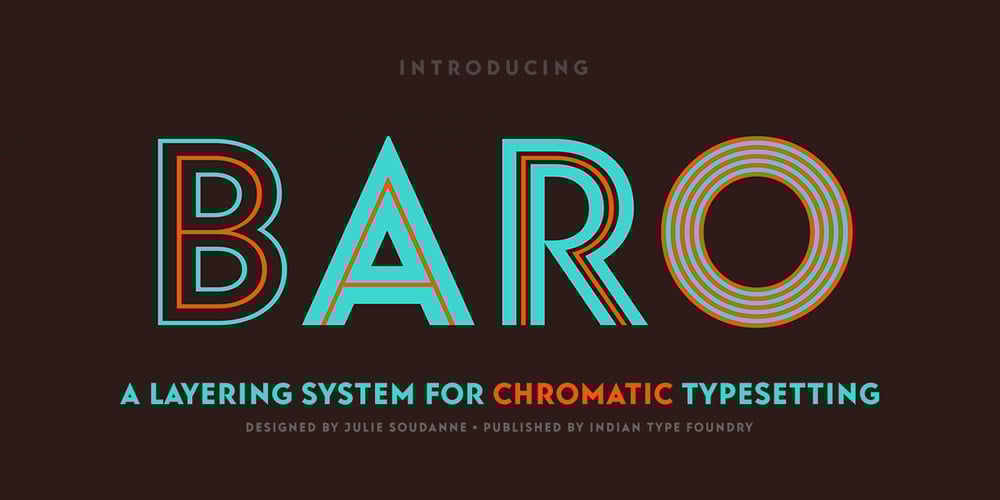
Baro Font Family was designed by Julie Soudanne and published by Indian Type Foundry. Baro contains 7 styles and family package options. Baro is a family of seven sans serif fonts. Its style is geometric, and its letterforms are all-caps. Some of the Baro fonts can be layered overtop one another for chromatic typesetting. The base style of the family is the Baro Plain font; all of its characters are comprised of thick, monolinear strokes. Baro Plain can be used on its own as a very heavy geometric sans, or it can be placed as a base behind other Baro fonts*. The characters in the Baro LineOne font are made up of very thin strokes. The letters don’t sit on an even baseline, but bounce up and down along the line of text. In Baro LineTwo, each character is drawn with two parallel strokes – an outline and an inline, with a thick hollow counter space between them. Baro LineThree just is like Baro LinoTwo, but with thicker strokes. Baro LineFour is a stand-alone font; its characters each have thin inline strokes in the center of their ‘backgrounds’ thick monolinear strokes. Baro Contour is yet another font like Baro LineTwo, except that its parallel strokes are even thinner. Finally, Baro Strip is a prismatic version of Baro, which can either stand alone or combine with Baro Plain. In Baro Contour, the ‘strokes’ of each letterform are made up of five parallel lines. Baro was developed by the Paris-based designer Julie Soudanne. *Chromatic typesetting is relatively simple to do in Adobe Creative Suite applications: just repeat the same text on multiple layers, use a different font on each layer, and make the text on each layer have a unique color.